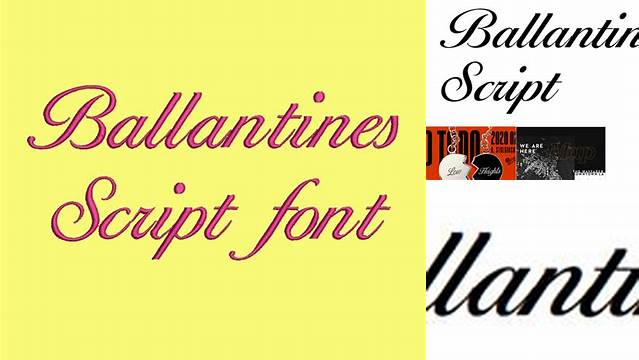
Hey guys! Ever stumbled upon a font that just screams elegance and class? Well, if you're looking for a typeface that adds a touch of sophistication to your projects, Ballantines Script EF might just be your new best friend. In this article, we're diving deep into everything you need to know about this beautiful font, including where to find a free download, how to use it, and even some creative ways to incorporate it into your designs. Let's get started!
Ballantines Script EF Font Family: An Overview
So, what exactly is Ballantines Script EF? This font family is a classic script typeface known for its flowing lines, elegant curves, and overall vintage charm. It's perfect for projects that need a touch of personality and sophistication. Think wedding invitations, branding materials, logos, and more! The Ballantines Script EF font family is designed to evoke a sense of timeless beauty, making it a versatile choice for a wide range of design applications. Whether you’re working on a formal invitation or a stylish logo, this font can add that extra touch of class. You'll often find this font used in projects aiming for a vintage or handcrafted feel, but don’t let that limit your imagination! Its adaptability makes it a fantastic choice for modern designs as well, offering a unique contrast that can make your work stand out. Plus, with a free download available, you can start experimenting with this font without any initial investment. How cool is that?
Using Ballantines Script EF Font Family in Graphic Design
Now for the fun part: using Ballantines Script EF font family in your graphic designs! This font is incredibly versatile, but it shines brightest when used thoughtfully. Because of its elegant and flowing style, it’s perfect for projects where you want to convey a sense of sophistication and class. Think wedding invitations, branding materials for luxury brands, or even stylish quotes and social media graphics. When using Ballantines Script EF, it’s important to consider the context of your design. Too much script can sometimes be overwhelming, so try using it sparingly to highlight key elements. For example, you might use it for headings or titles while pairing it with a simpler sans-serif font for the body text. This creates a nice contrast that makes your design both legible and visually appealing. Also, pay attention to the font size and spacing. Script fonts often look best when they have a little room to breathe, so avoid cramming letters too close together. Experiment with different weights and styles within the font family to see what works best for your project. With a little creativity, you can make Ballantines Script EF a standout element in your design arsenal.
Pairing Ballantines Script EF Font Family with Other Fonts
One of the keys to using Ballantines Script EF font family effectively is pairing it with the right fonts. A beautiful script like this can really shine when it’s combined with a complementary typeface that balances its elegance. The goal is to create a visual harmony that makes your design look polished and professional. Generally, script fonts pair well with simple, clean fonts like sans-serifs. Think about using Ballantines Script EF for your headings and then choosing a sans-serif font like Arial, Helvetica, or Open Sans for the body text. This combination provides a nice contrast that makes the script stand out while ensuring the body text remains easy to read. Another option is to pair it with a serif font that has a more classic feel, such as Times New Roman or Georgia. This can be a great choice for designs that aim for a timeless and sophisticated look. When choosing a pairing font, consider the overall tone of your project. If you’re going for a modern and minimalist design, a clean sans-serif is probably your best bet. If you want something more traditional and elegant, a classic serif could be the way to go. Don't be afraid to experiment and try different combinations until you find the perfect match for Ballantines Script EF.
Designing Logos with Ballantines Script EF Font Family
If you're looking to create a logo that exudes elegance and personality, the Ballantines Script EF font family can be an excellent choice. Its flowing, handwritten style adds a touch of sophistication that can make your brand stand out. However, designing a logo with a script font requires careful consideration to ensure it’s both visually appealing and legible. When using Ballantines Script EF in a logo, think about the overall message you want to convey. This font is particularly well-suited for brands that want to project a sense of luxury, creativity, or personal touch. It’s a popular choice for businesses in the fashion, beauty, and event planning industries, but it can also work well for other sectors depending on the specific design. Keep in mind that script fonts can sometimes be harder to read at smaller sizes, so it’s crucial to ensure your logo remains legible even when it’s scaled down for use on business cards or social media profiles. Try to keep the text concise and use the font strategically to highlight the most important elements of your brand name. Additionally, consider the color palette and other design elements that will complement the font. A simple, elegant color scheme can enhance the sophistication of Ballantines Script EF, while other design elements should be clean and uncluttered to avoid overwhelming the logo. With a bit of creativity, you can create a logo that truly captures the essence of your brand using this beautiful font.
Using Ballantines Script EF Font Family for Wedding Invitations
Planning a wedding? Then you know how important it is to get the invitations just right! The font you choose can set the tone for the entire event, and the Ballantines Script EF font family is a fantastic option for adding a touch of elegance and romance. Its flowing script and delicate curves make it perfect for conveying the specialness of the occasion. When using Ballantines Script EF for wedding invitations, think about how you can incorporate it into the overall design. It works beautifully for headings, names, and key details like the date and time. To ensure readability, pair it with a simpler font for the body text, such as a classic serif or a clean sans-serif. This will make sure your guests can easily read all the important information while still appreciating the beauty of the script. Consider the color palette as well. Soft, romantic colors like blush, ivory, and gold can complement the elegance of Ballantines Script EF beautifully. You might also want to incorporate other design elements, such as floral motifs or delicate borders, to enhance the overall aesthetic. Remember, the goal is to create an invitation that reflects your personal style and the tone of your wedding. With Ballantines Script EF, you can create invitations that are both beautiful and memorable.
Ballantines Script EF Font Family and Calligraphy Influences
The Ballantines Script EF font family has some serious calligraphy vibes, and that's no accident! Its flowing lines, elegant curves, and overall handcrafted feel are all directly influenced by the art of calligraphy. Understanding this connection can give you a deeper appreciation for the font and help you use it more effectively in your designs. Calligraphy, which literally means